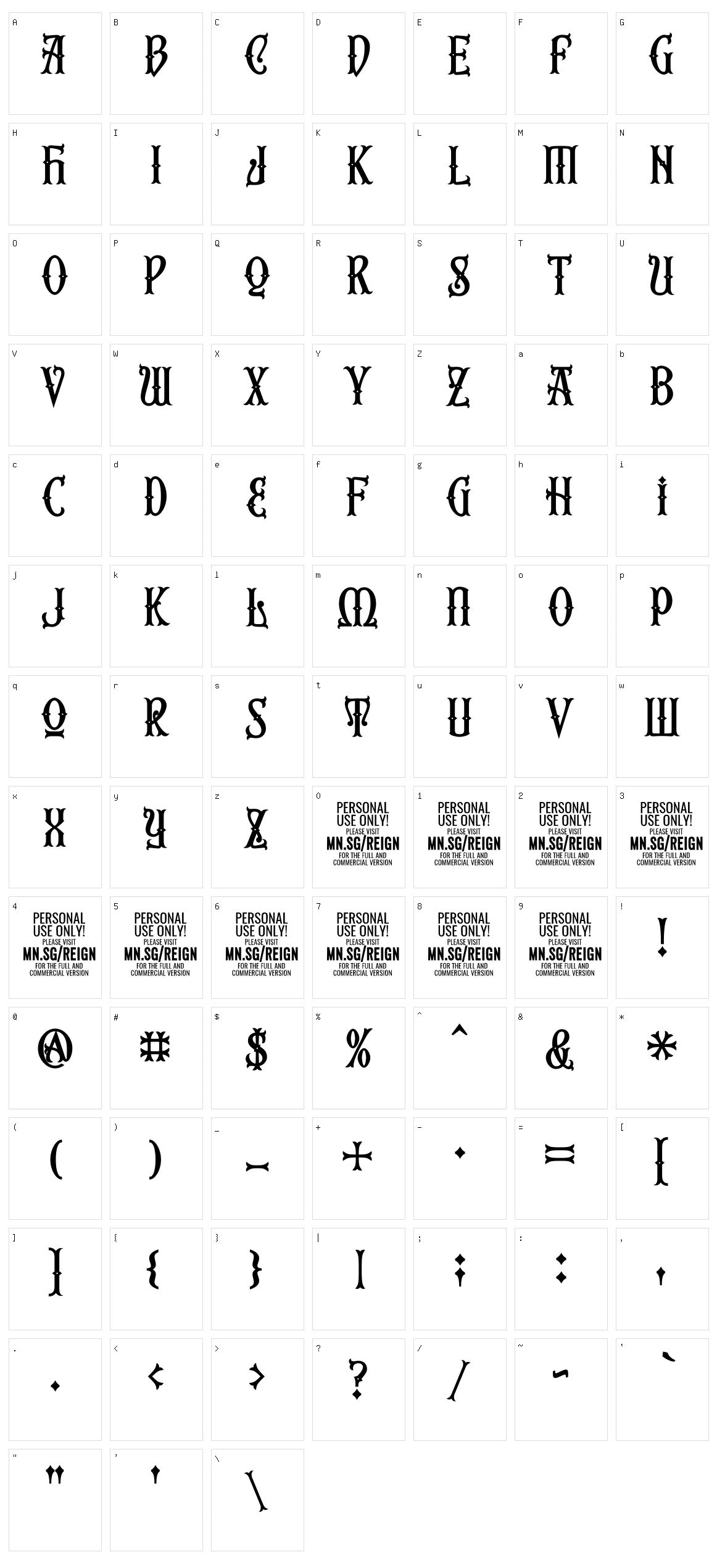
Second Reign
Second Reign is a decorative medieval typeface.
With borders and diamonds, this magic typeface of extreme variability brings us to glorious worlds in the golden times of epic sagas.
Second Reign is the typeface of a viking king or a knight order.
Use it for a Middle Ages game, a fantasy headline, or as a logotype for anything of historical theme.
With usage in any modern software, the letters will automatically overlap and embrace in an elegant way.
To make heraldic symbols, copy these icons: 🐉 🐎 👑 🗡 🦁 🦅 🦌 + ♖ × ✝ ⚓ * ⚔ † ‡
Alternatively write %A %B %C ... etc to create the heraldry. (Download required.)
Dragon, Horse, Crown, Sword, Eagle, Deer, Cross, Anchor are some of the logos.
Use [ ] for side borders.
Example: [Royal⚔Thrones]
The Second Reign family consists of four variations:
The weight styles Thin, Medium and Bold, plus the decorated Border style.
The font is built with advanced OpenType functionality and has a guaranteed top-notch quality, containing stylistic and contextual alternates, ligatures and more features; all to give you full control and customizability.